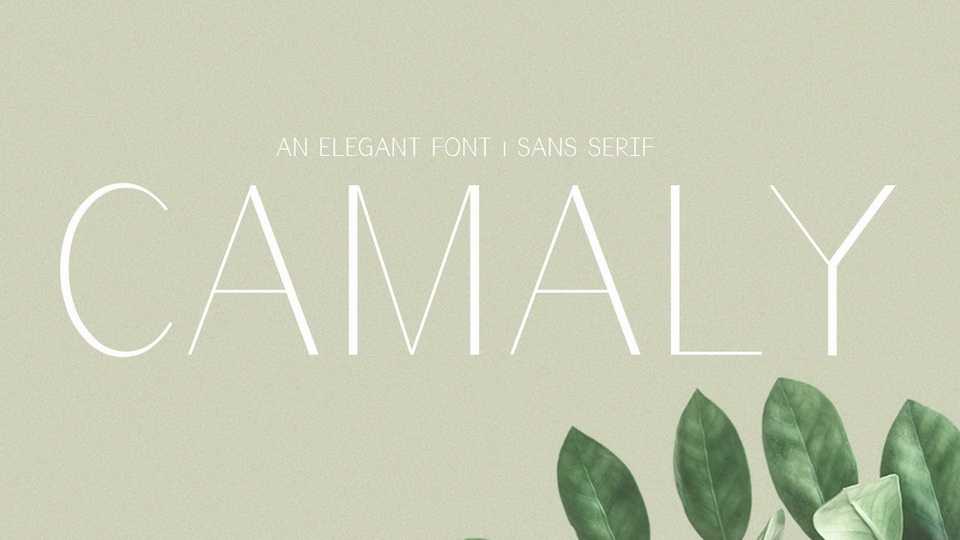
Download Camaly font, a thin and elegant sans serif typeface with an incredibly modern style. Fall in love with its unique flavor, and turn any design idea into a piece of art!
Designer: White Supply